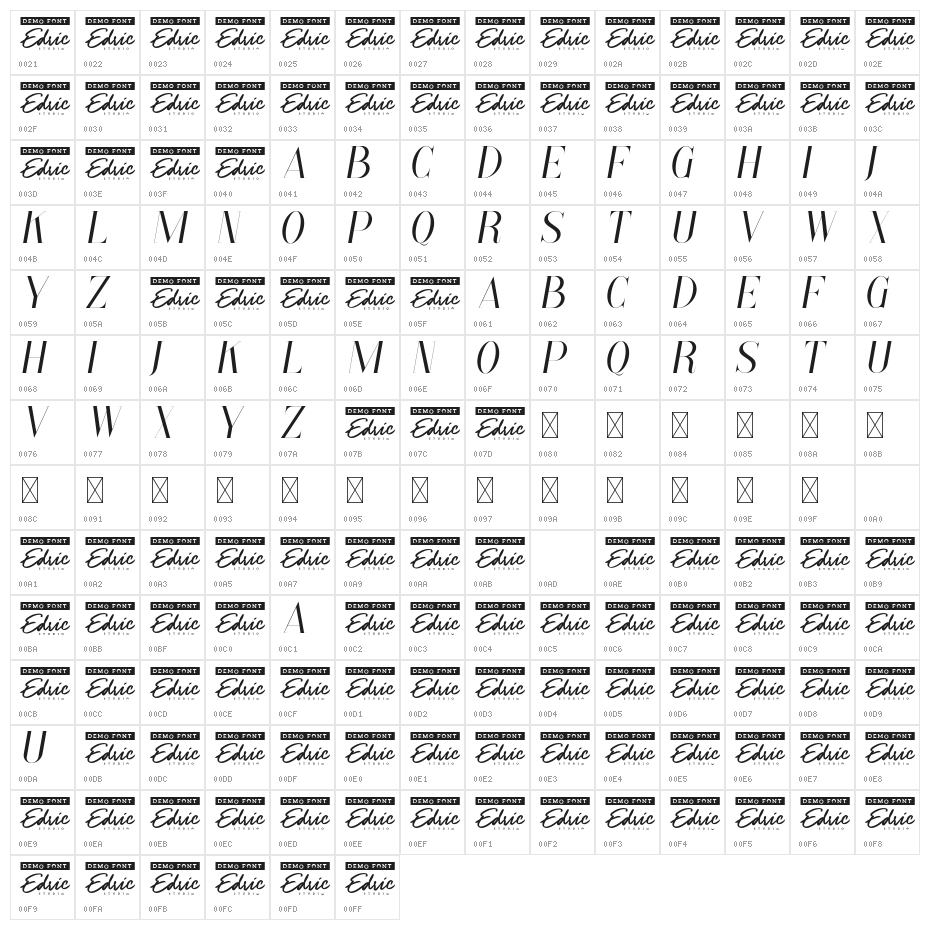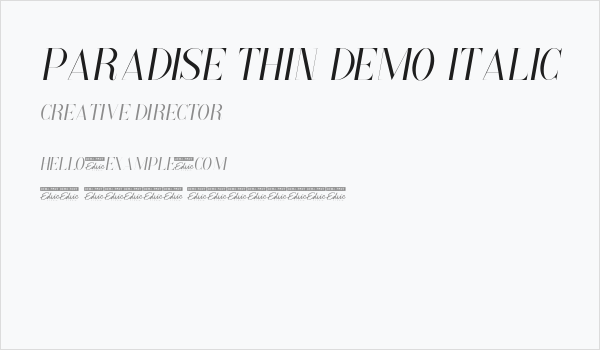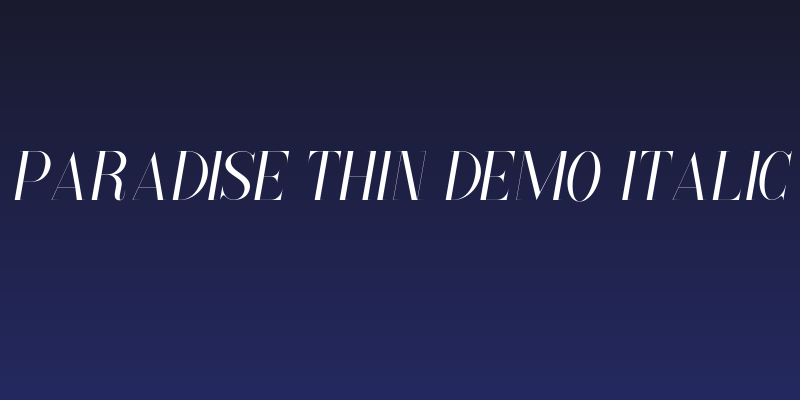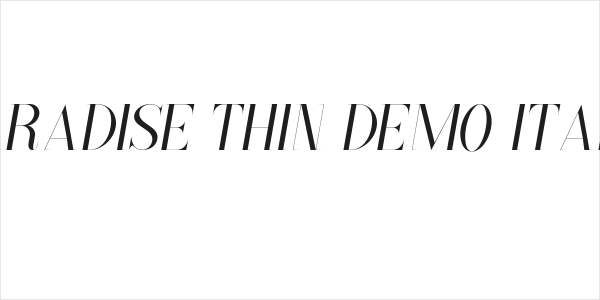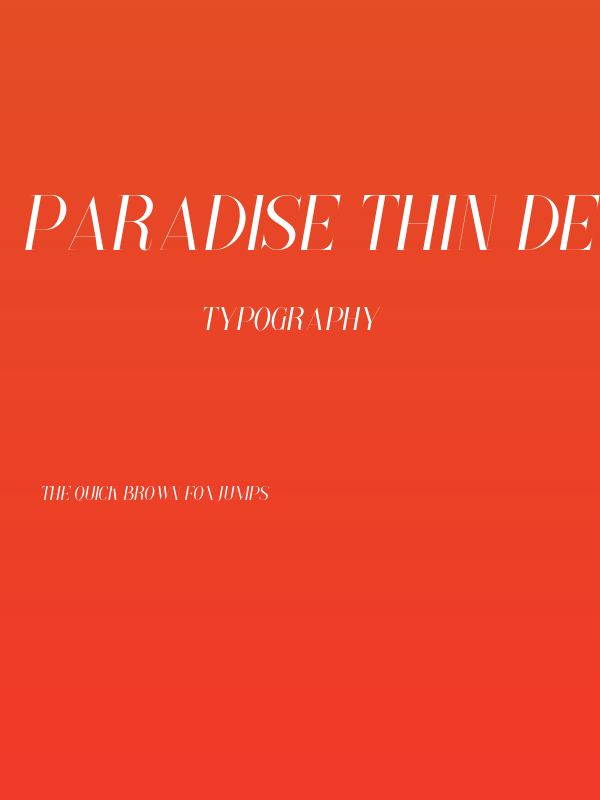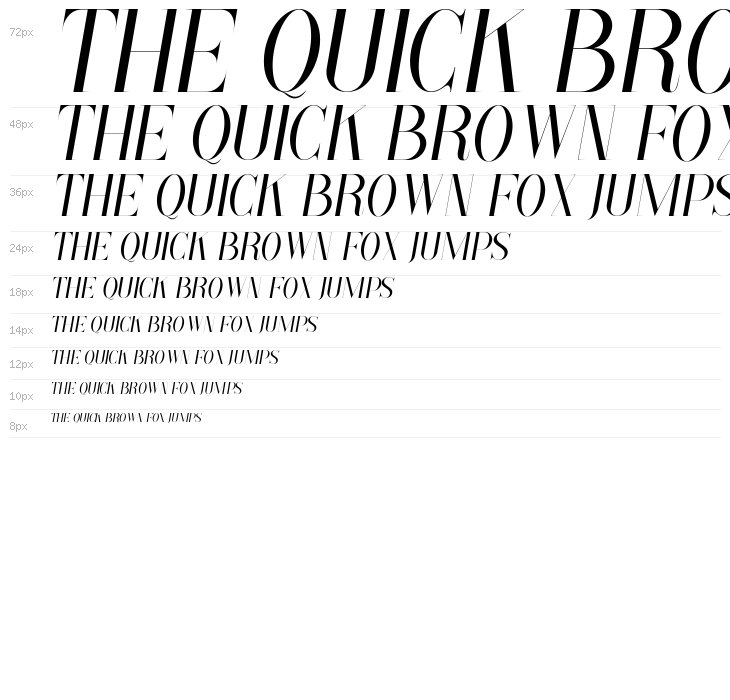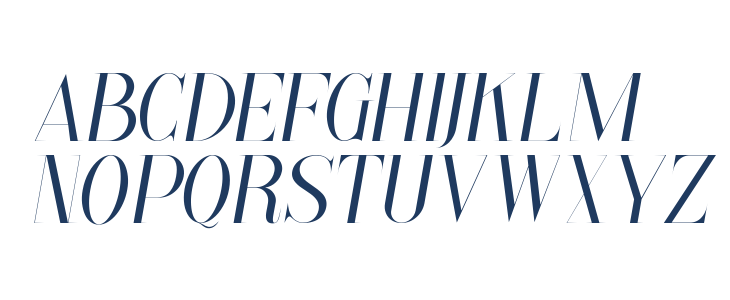
Paradise Thin Demo Italic Font
Paradise Thin Demo Italic Description
This elegant and sophisticated font features a thin, italicized style that exudes a sense of modernity and grace. The characters are elongated with a slight slant, giving them a dynamic and fluid appearance. The strokes are delicate and refined, with a high contrast between thick and thin lines, adding to its luxurious feel. The font's overall design is sleek and stylish, making it ideal for projects that require a touch of elegance and class. Its unique character shapes and spacing create a harmonious and visually appealing text flow.
| Overall Style | Elegant and modern |
| Use Case | Logos, headlines, invitations |
| Proposed Projects | Ideal for luxury branding, fashion magazines, wedding invitations, and high-end product packaging. |